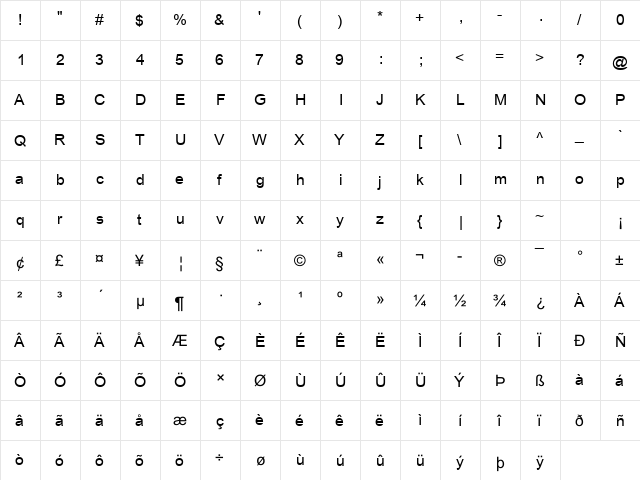
CordiaUPC Bold Font Preview
CordiaUPC Bold
Design Context for CordiaUPC Typeface
CordiaUPC is a composed and adaptable typeface that performs quietly and consistently across a wide range of design contexts. Its bold stroke weight gives it real presence on the page.